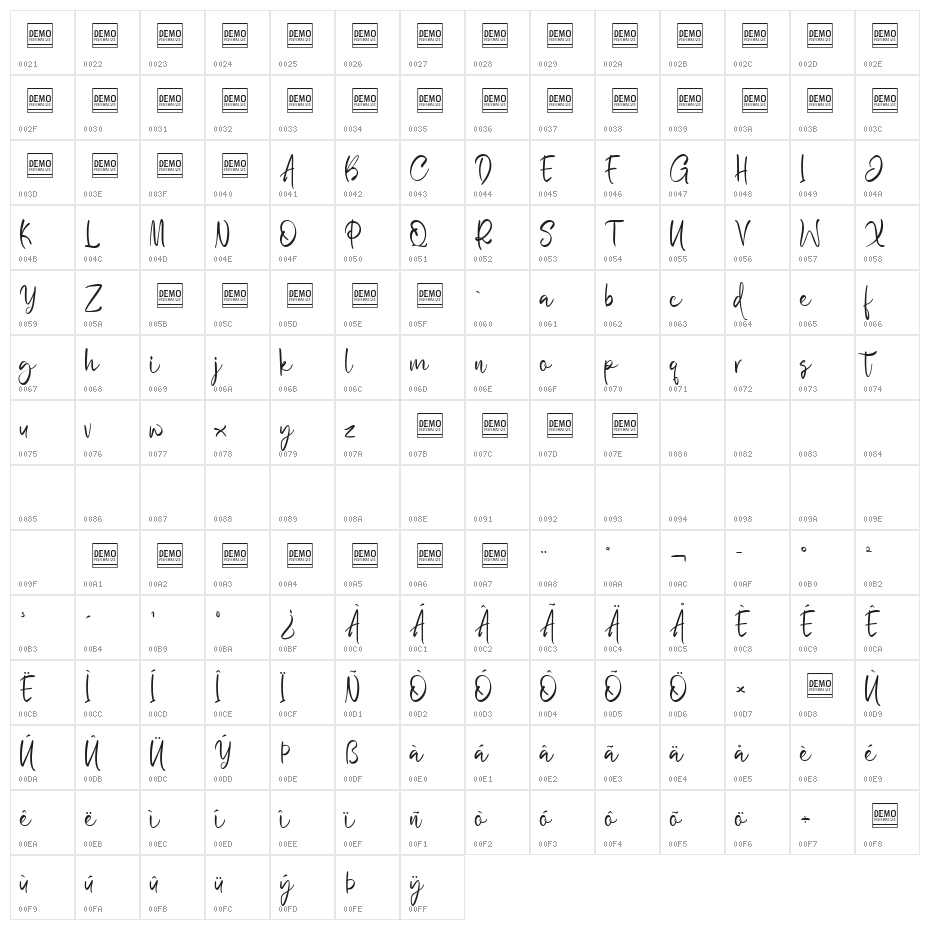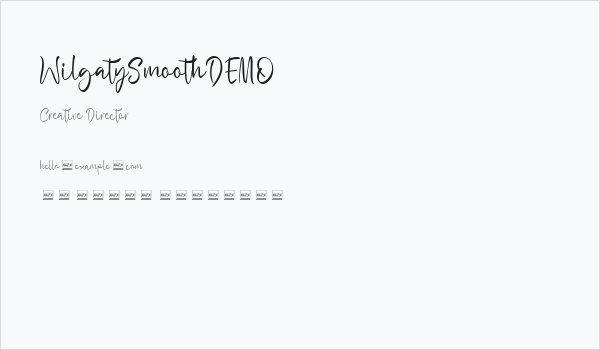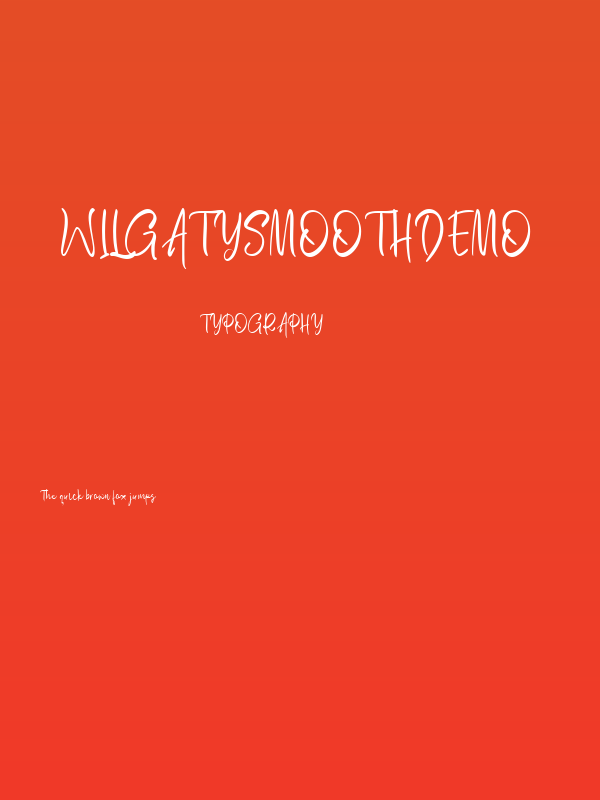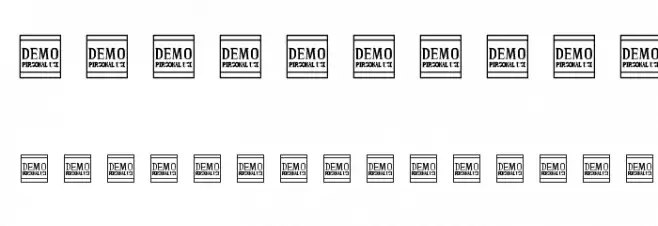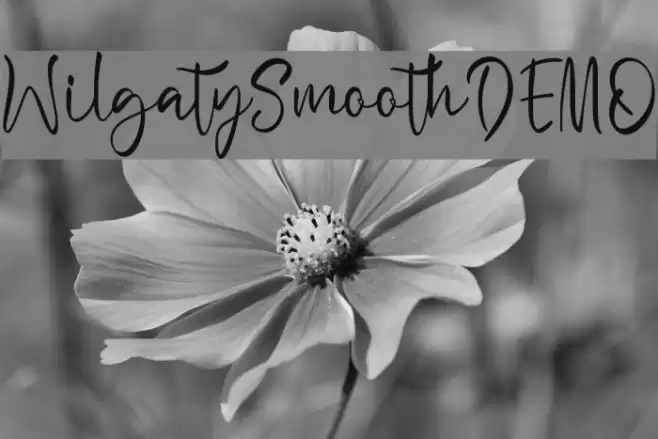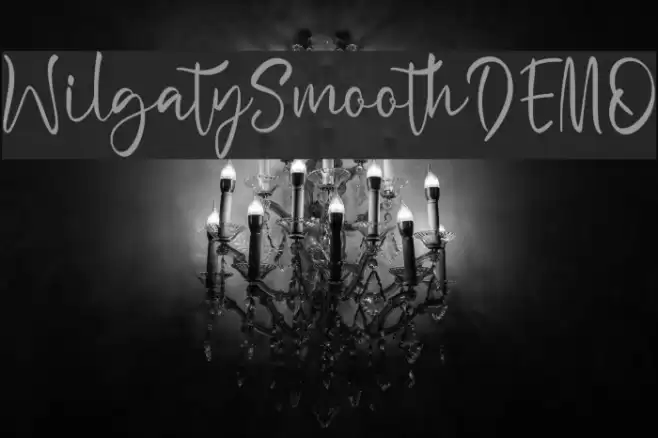
WilgatySmoothDEMO Font
WilgatySmoothDEMO Description
This font features a smooth, flowing script style that exudes elegance and a personal touch. The letters are connected with a fluid motion, creating a sense of continuity and grace. The uppercase letters are bold and expressive, while the lowercase letters maintain a consistent rhythm and balance. The overall appearance is both modern and classic, making it versatile for various design needs. The font's strokes are moderately thick, providing a medium contrast that enhances readability without sacrificing its artistic flair. Ideal for projects that require a personal or artistic touch, this font is perfect for invitations, branding, and decorative purposes.
| Use Case | Invitations, Branding, Decorative |
| Proposed Projects | Ideal for wedding invitations, personal branding, greeting cards, and decorative signage. |